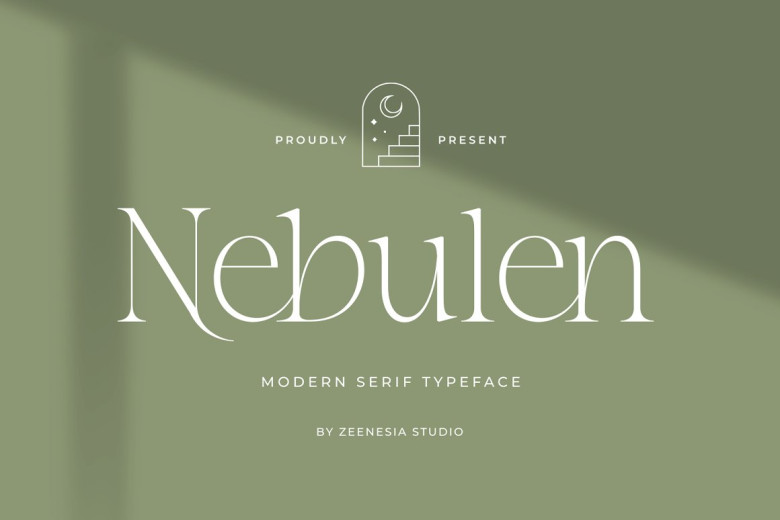
Nebulen is a beautiful and feminine serif font from the romantic era of England. It was made with Open Type features, stylistic Alternate and Ligature makes your project now marvelous.
Nebulen Serif Font